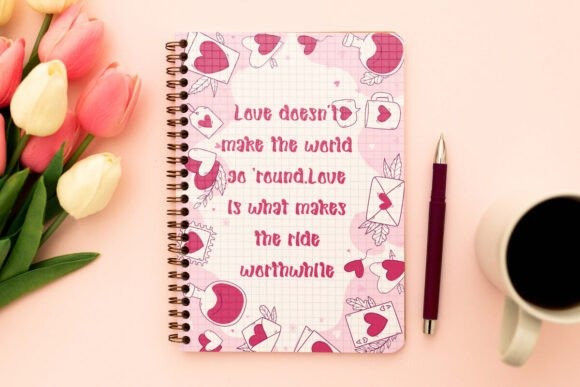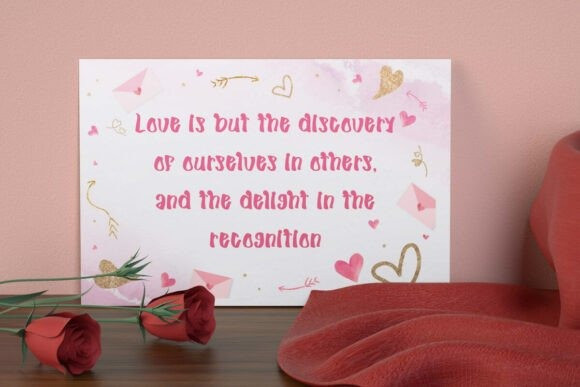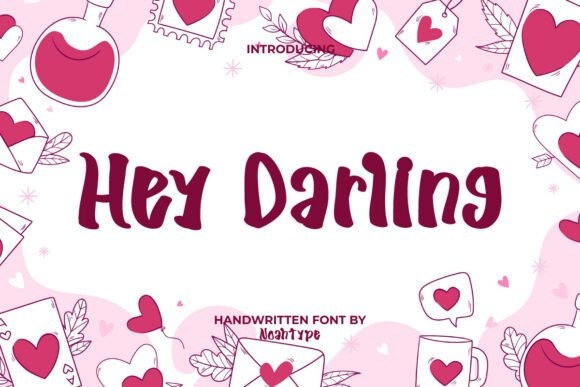
Hey Darling Font
Hey Darling Font is a lovely cartoon handwritten font with a funny romantic theme. This cute font will let you use it in many designs that need an adorable look. It will be suitable for any industries, such as advertisement, bakery and pastry, café, event or festival, fashion, florist, printing, publishing, and more!